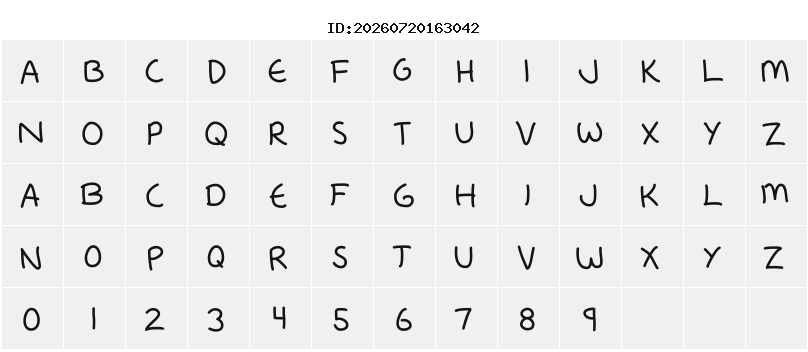
About Fredfont.ttf
Fredfont.ttf is a modern, elegant sans-serif font designed for ultimate readability and visual harmony. Perfect for branding, headlines, web design, and print materials.